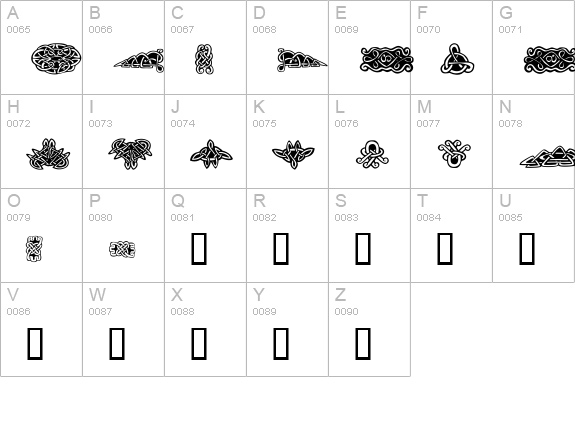
Tattoo No1 font is a bold and edgy typeface that is perfect for making a statement with your designs. Its unique and intricate letterforms give a rebellious and artistic touch to any project. Whether you're looking to add a touch of urban flair to a logo, create eye-catching headlines, or make a bold statement on a poster, this font has got you covered. What sets Tattoo No1 font apart is not just its striking design, but also its accessibility. This font is freely available to download at FontsMarket.com, giving you the freedom to use it in your personal and commercial projects without any restrictions. Now, you can unleash your creativity without worrying about breaking the bank. With its strong and distinctive characters, Tattoo No1 font captures the essence of tattoo culture, making it an ideal choice for tattoo artists, tattoo studios, or anyone looking to add an ink-inspired vibe to their designs. The bold and sharp lines of this font create a sense of power and strength, while the intricate details add an artistic touch. Whether you're designing a tattoo, a rock band logo, or a poster for a music festival, Tattoo No1 font will make your work stand out from the crowd. Its versatility allows it to be used in a variety of design projects, from posters and album covers to websites and branding materials. So, if you're looking for a font that combines the rebelliousness of tattoos with the artistic flair of typography, look no further than Tattoo No1 font. Download it for free at FontsMarket.com and let your creativity flow.